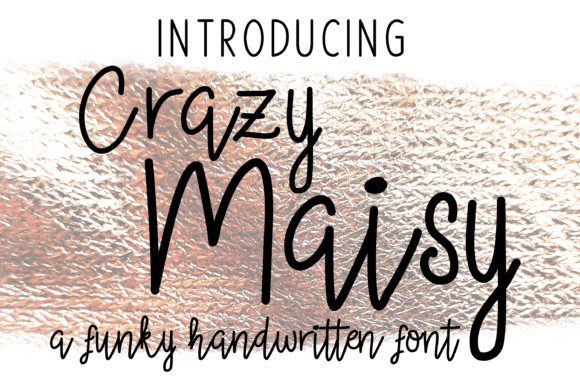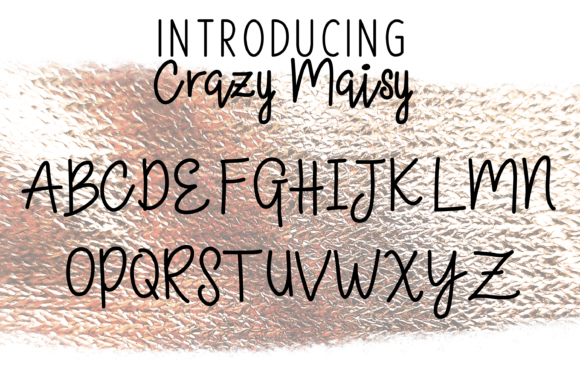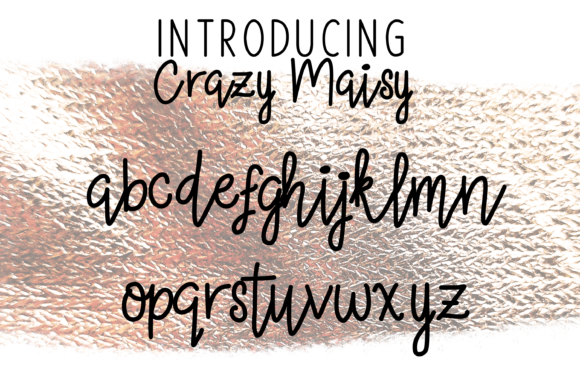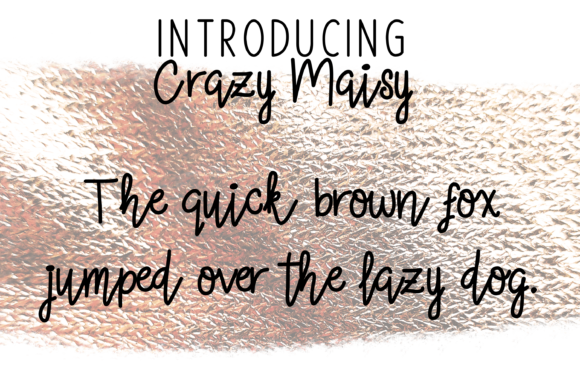
HomeScript FontsCrazy Maisy Font Script Fonts Crazy Maisy Font FacebookXPinterestWhatsApp Crazy Maisy Font Poster 2 Crazy Maisy Font Poster 3 Crazy Maisy Font Poster 4 About Crazy Maisy Font Crazy Maisy is a funky handwritten font with charming characters. Works well with a variety of design projects! DOWNLOAD ON CREATIVE FABRICAThis font is sold and delivered by Creative Fabrica. Font Canyon may earn a commission if you buy through this link. People also explored Child Plane Font Balisay Font Dream Spring Font General Font Alyanda Script Font Strong Womans Font Hansip Font Signature Blend Font Unpublished Ornaments Two Font 349 0 TagsCrazy Maisy Font Previous articleCheropoly FontNext articleGnarly Karly Font LEAVE A REPLY Cancel reply Comment: Please enter your comment! Name:* Please enter your name here Email:* You have entered an incorrect email address! Please enter your email address here Website: Save my name, email, and website in this browser for the next time I comment. Personal Use Free Haris Wood Personal Use Free Read more about this font Malinda Personal Use Free Read more about this font Messy Personal Use Free Read more about this font BD TinyFont Personal Use Free Read more about this font BLOG Fonts That Capture the Spirit of New York City New York City is more than just a place—it’s an experience, a rhythm, a visual language... Top 10 Handwritten Fonts That Elevate Your Designs The 10 Best Handwriting Fonts to Add Personality to Your Designs Top 7 Google Fonts Alternatives for Faster and Privacy-Friendly Web Design (2025)